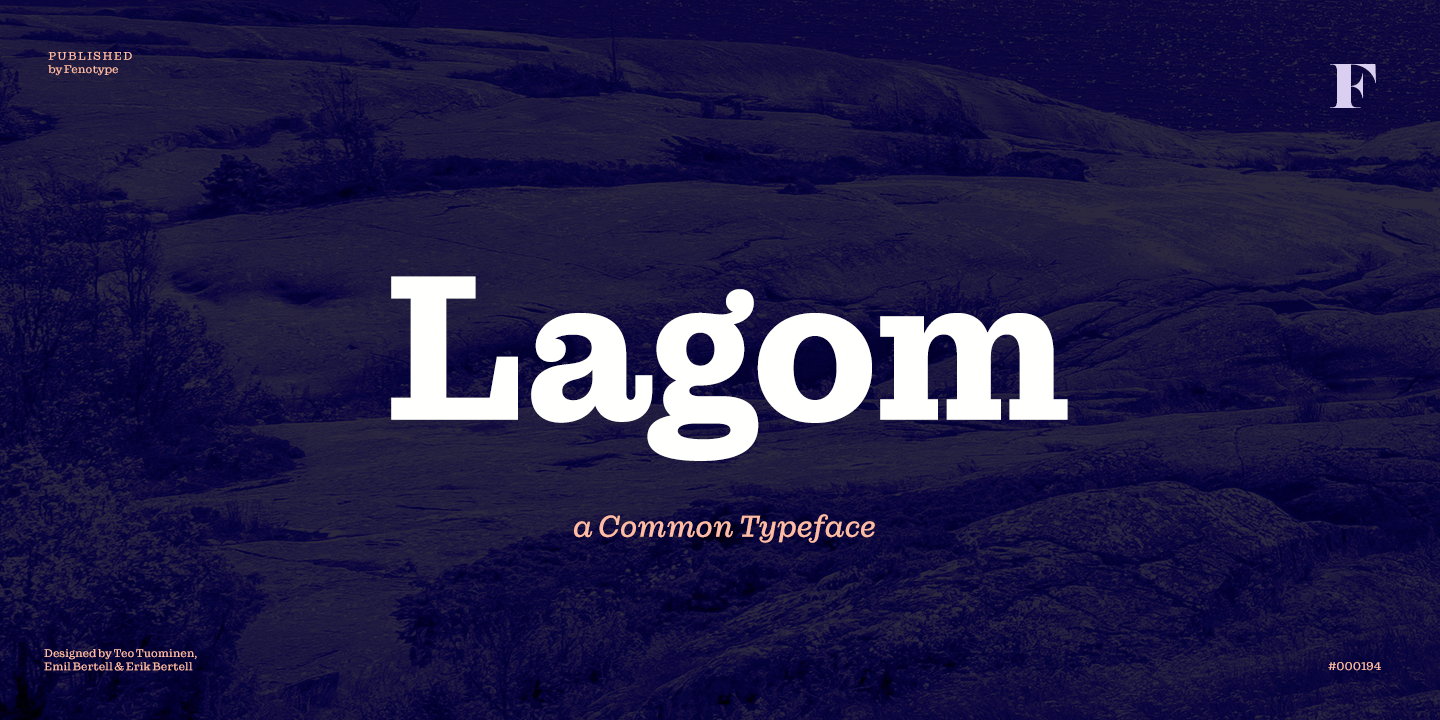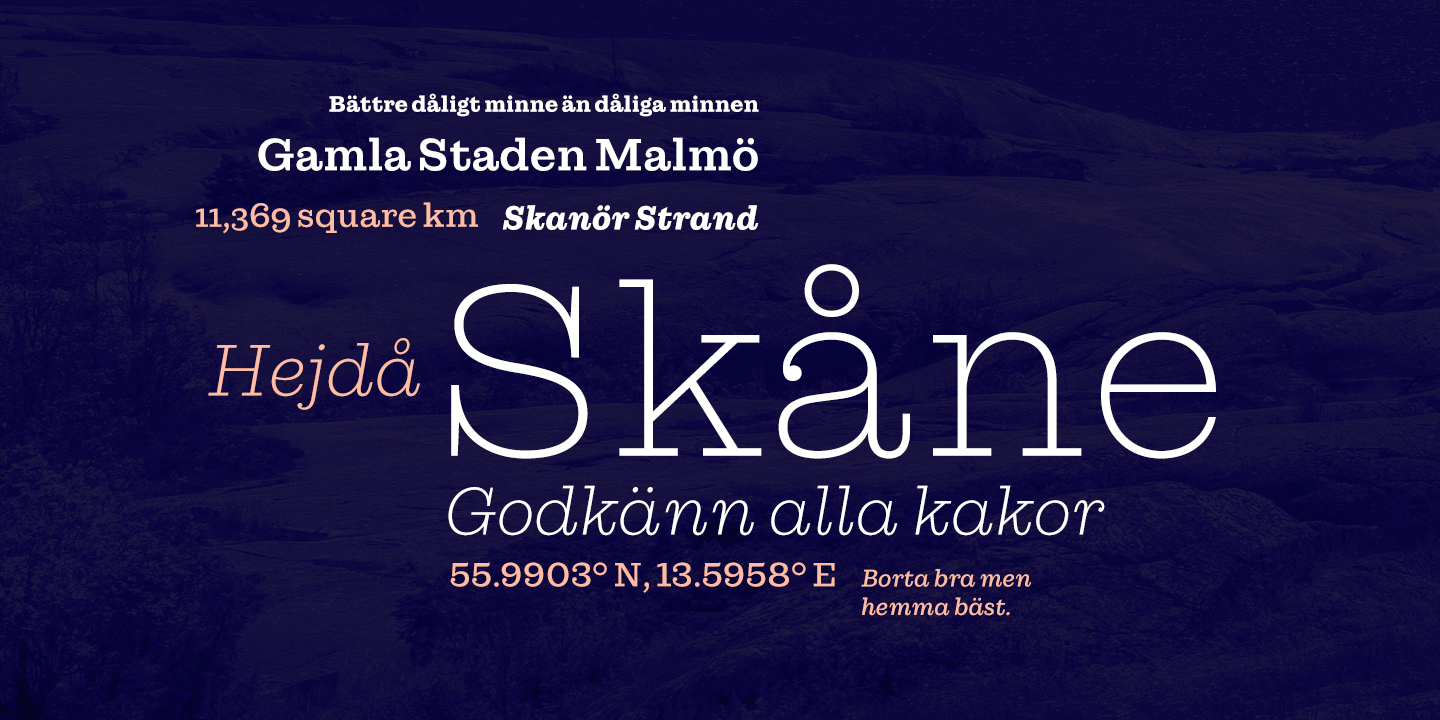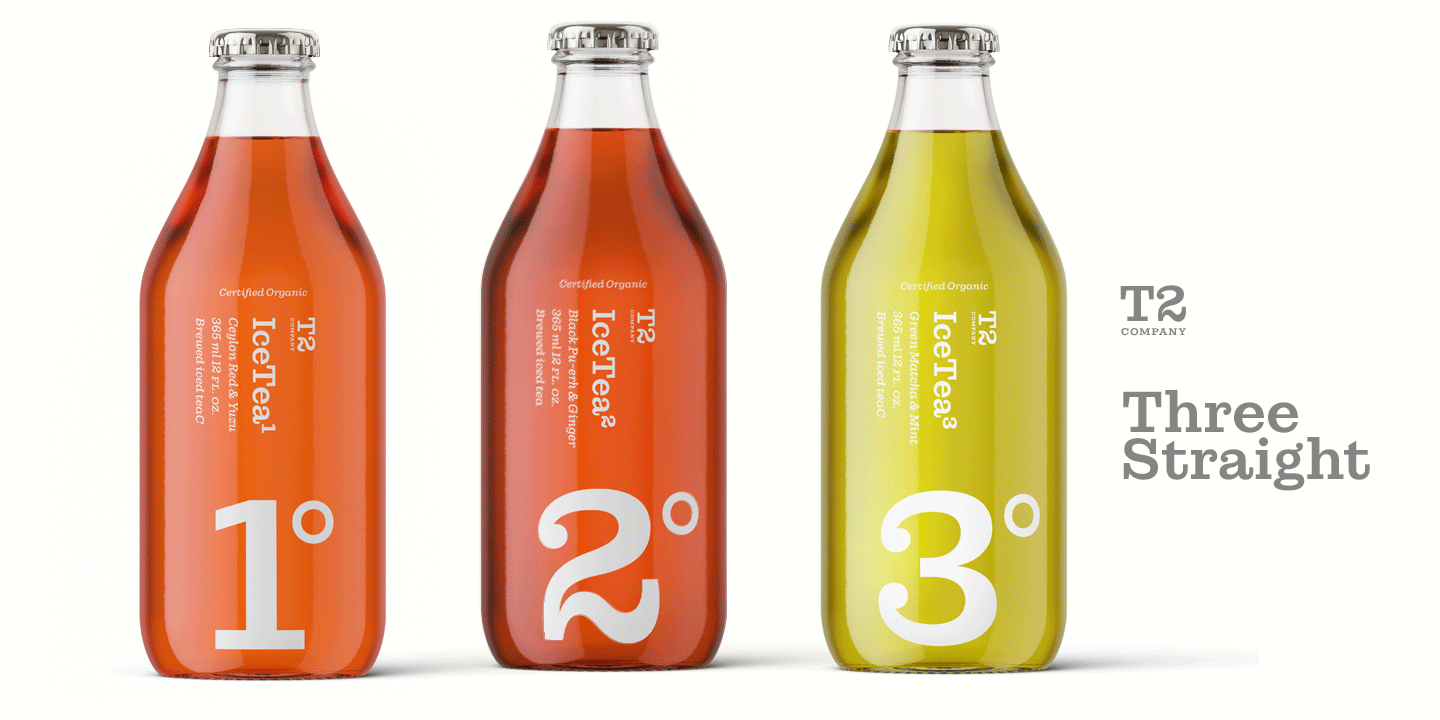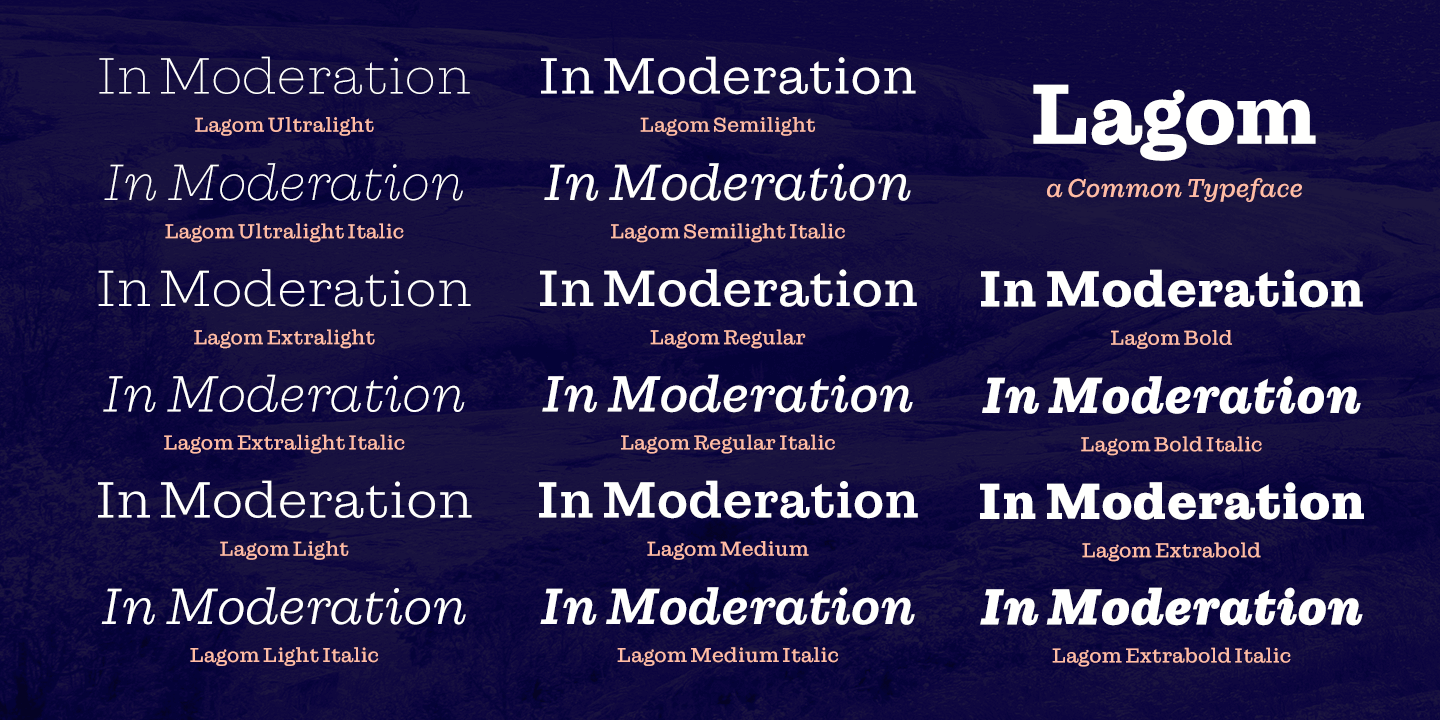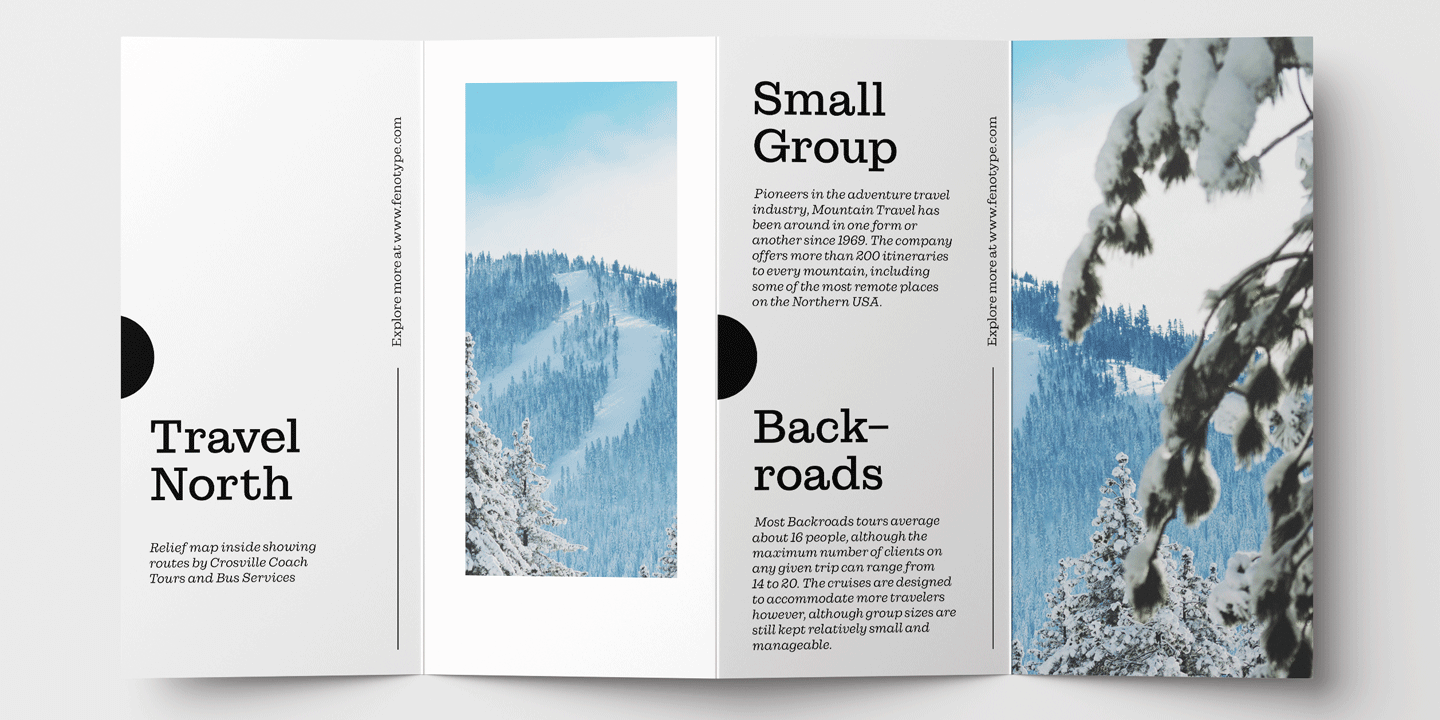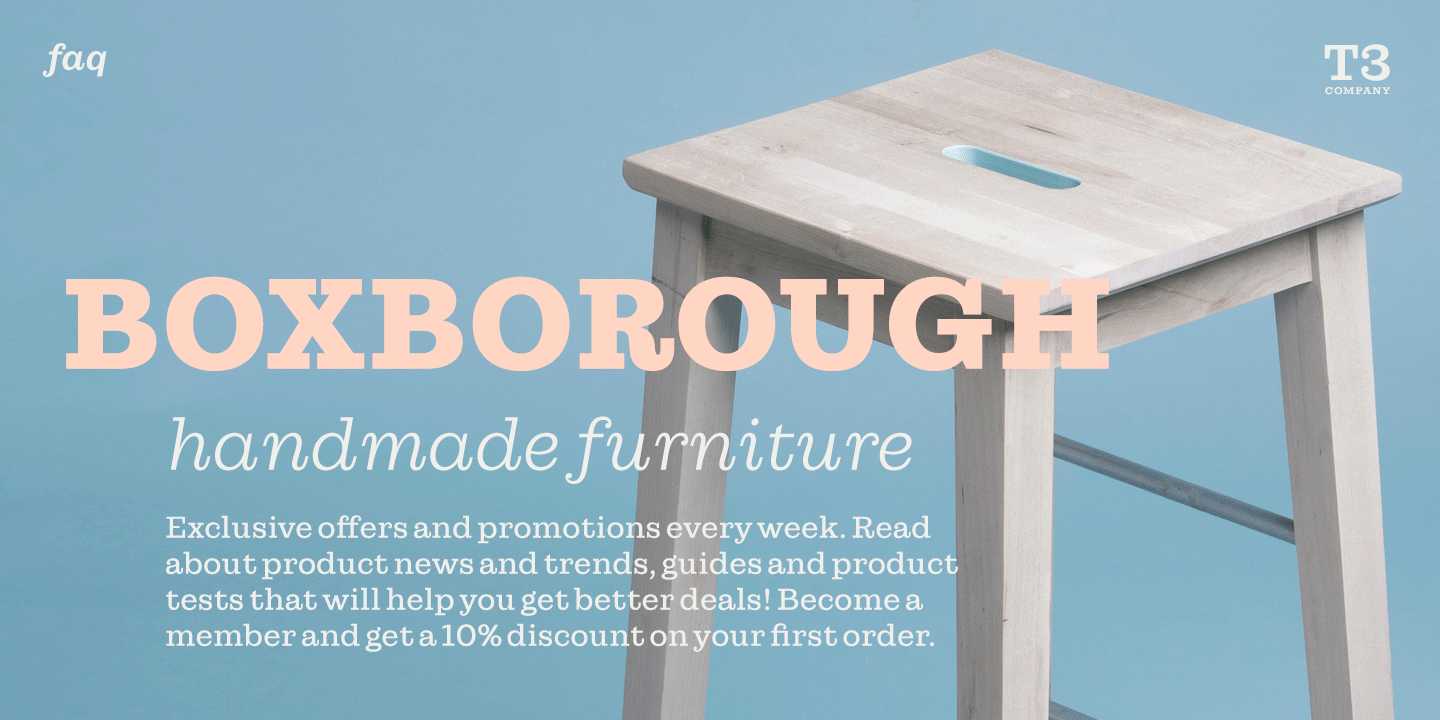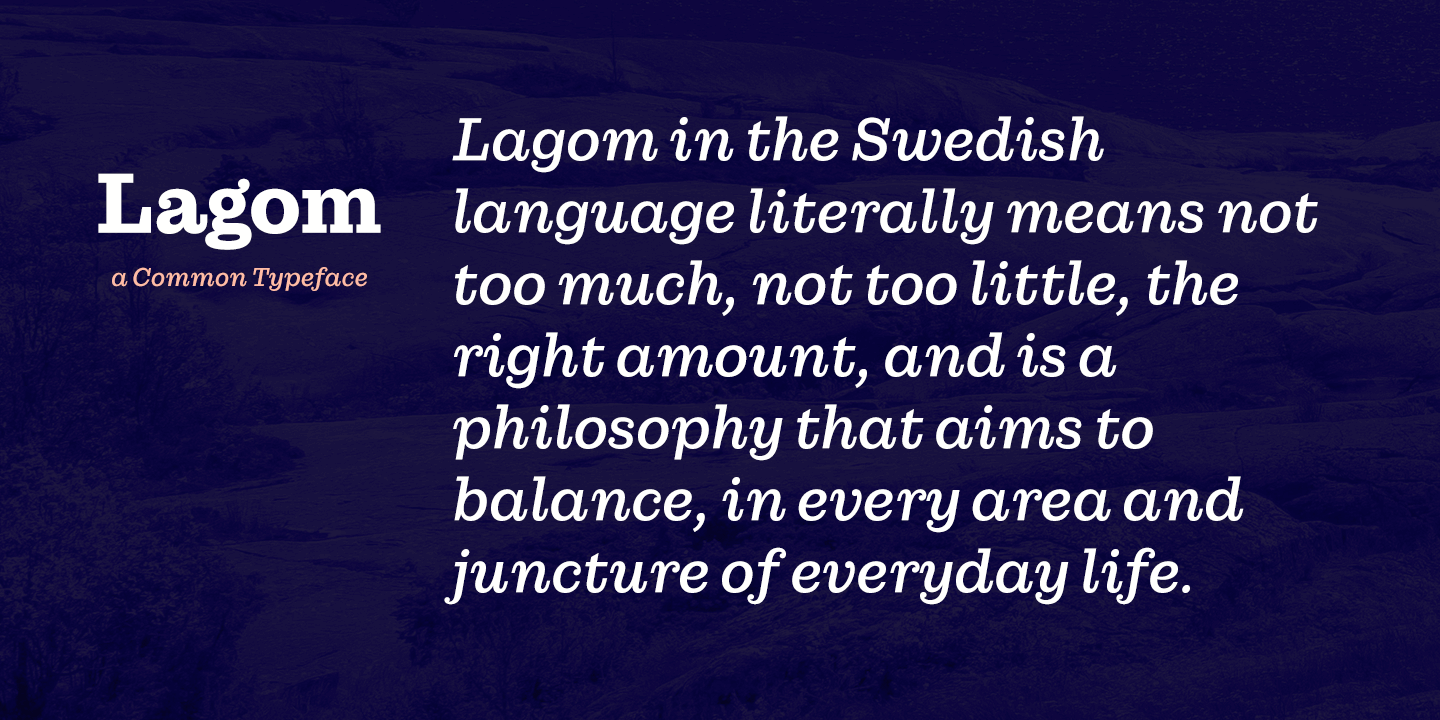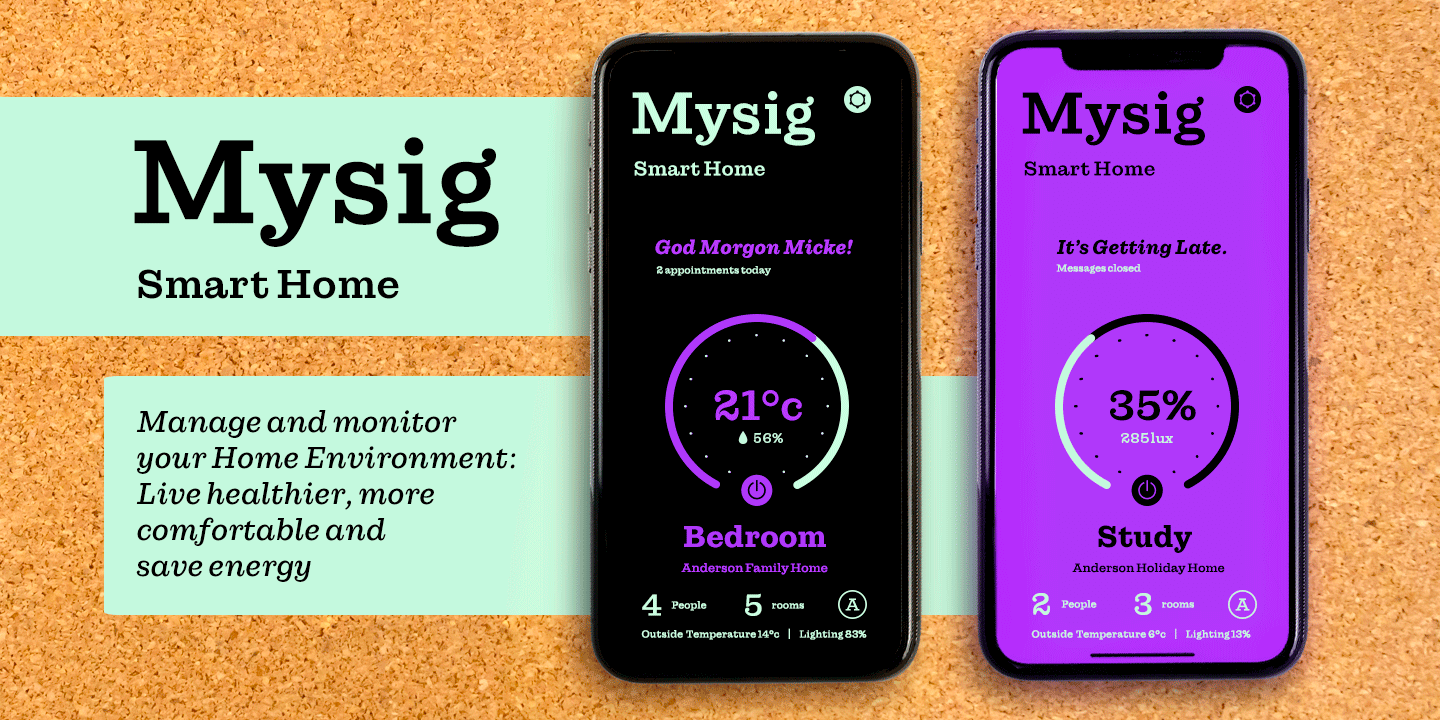
Lagom
Do you find some of the contemporary fonts just a tad too cool, restrained ? even arrogant in their appearance?
Here's something to charm your worried clients with ? Lagom, a polite and diplomatic type family.
Use Lagom and you'll be able to reach just that fine line between sophistication and mundane.
The font family works really well with FMCG (fast moving consumer goods) products, restaurant identities and menus or wayfinding systems ? you could even try it on a mobile app for that more human, ease-of-approach feel.
Perfectly adept for contemporary needs, Lagom fonts come with smart Open Type features and the family is kept just the right sized ? not too vast, not too compact.